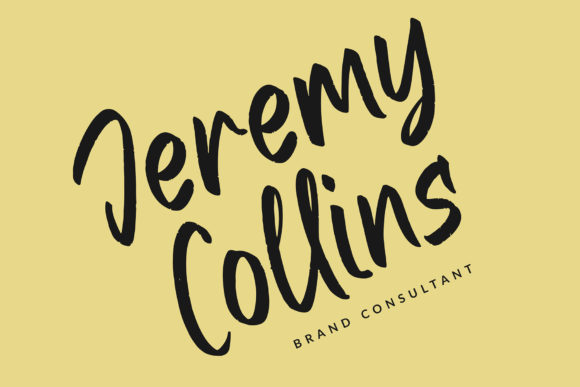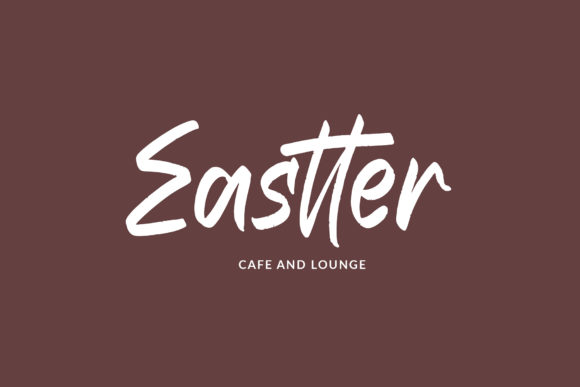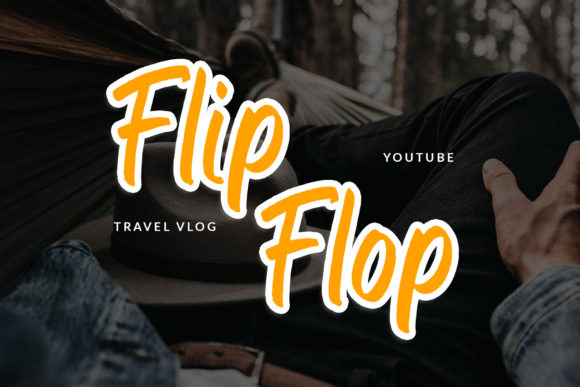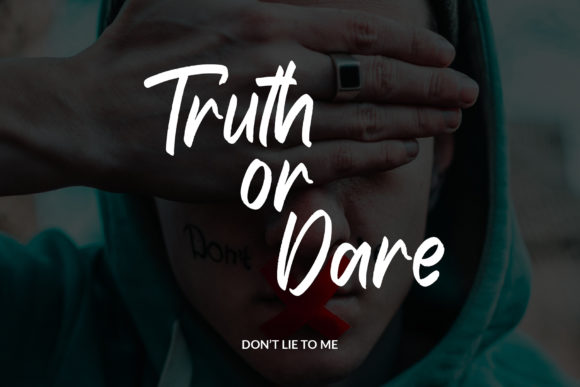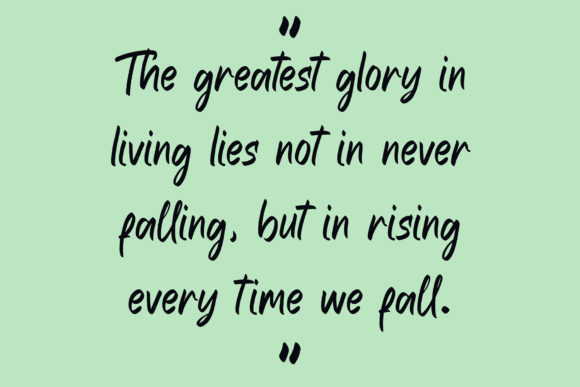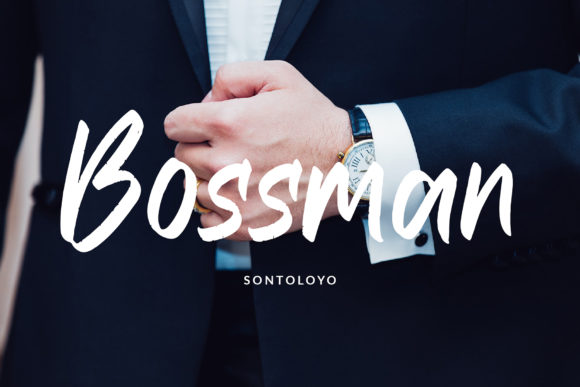
Introduction to Logimas Font
You’ve spent hours brainstorming ideas for your latest design project, pouring your heart and soul into every detail. And then, it hits you – the perfect font to bring your creative vision to life. For designers, finding the right font can be a game-changer, elevating your work from good to outstanding.
That’s where the Logimas Font comes in – a stunning, handwritten font with an authentic brush style that’s sure to make your designs stand out. With its high-quality design and transparent background, this font is perfect for adding a personal touch to your creative projects. Whether you’re working on a commercial campaign or a personal art piece, the Logimas Font is a valuable design resource that’s sure to impress.
Key Features of Logimas Font
- High-quality, unique design ideal for creative projects, such as graphic design, digital art, and typography.
- Transparency and layering capabilities make it suitable for designs with transparent backgrounds.
- Logimas Font is designed with a clean, modern aesthetic, perfect for use in logos, branding, and visual identity projects.
- Perfect for use in digital design, including web design, mobile apps, and video games.
Honest Review: Logimas Font
I recently had the chance to work with the Logimas Font, and I must say it’s a great addition to my design resource library. The free download was a pleasant surprise, and the high quality of the font is immediately apparent.
What works well is the transparent background, which makes it easy to layer and combine with other design elements. I used it for a creative project where I needed a clean, modern look. The font is versatile and suitable for a wide range of designs, from digital to print.
Here are some of its key features:
- High-quality, professional design
- Perfect for creative projects requiring a modern look
However, I did encounter some limitations. The font is not ideal for small text sizes, as it can become pixelated and difficult to read. Additionally, it may not be suitable for designs requiring a bold, playful feel.
Overall, I’m impressed with the Logimas Font, and I would definitely recommend it to designers looking for a high-quality, versatile font for their creative projects. ⭐️⭐️⭐️⭐️⭐️ (5/5 stars)
Tips for Getting the Most Out of Logimas Font
For optimal results, use Logimas Font in conjunction with a high-quality image or background. Experiment with different font sizes and styles to find the perfect balance for your design.
Logimas Font is ideal for a variety of creative projects, including logos, business cards, brochures, and social media graphics. Its unique design and transparent background make it a versatile design resource for any project.